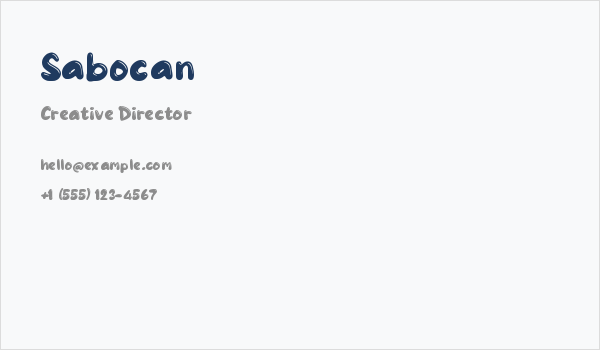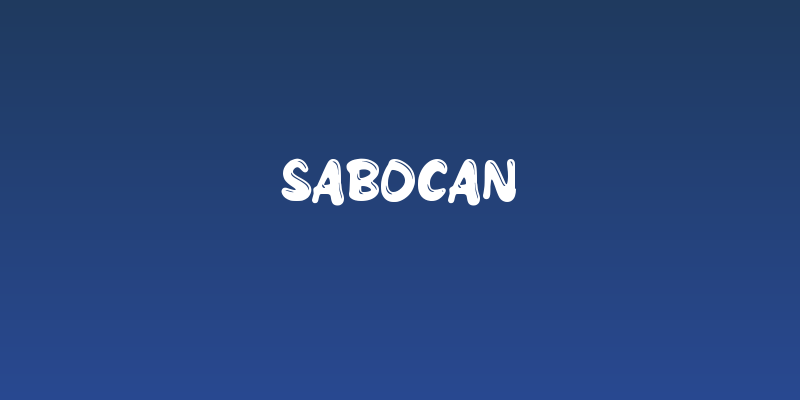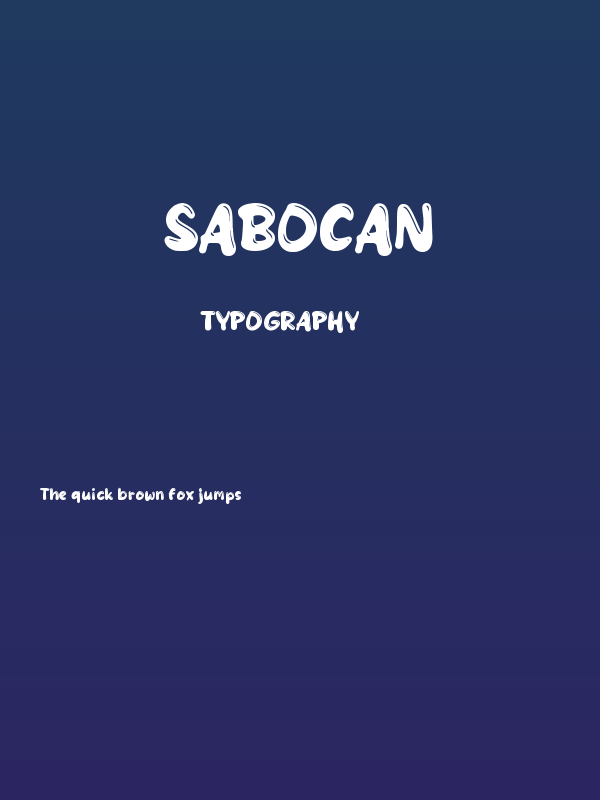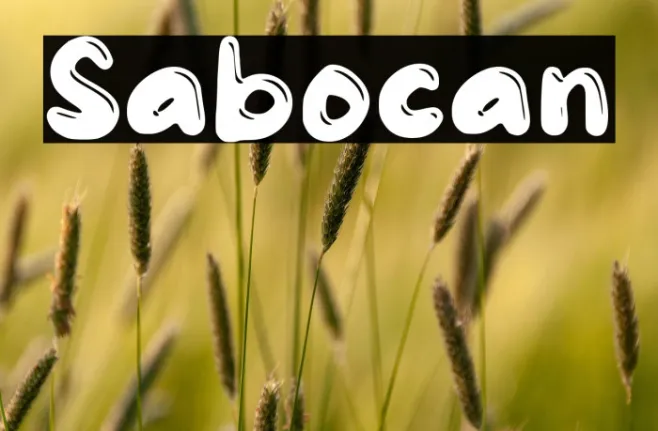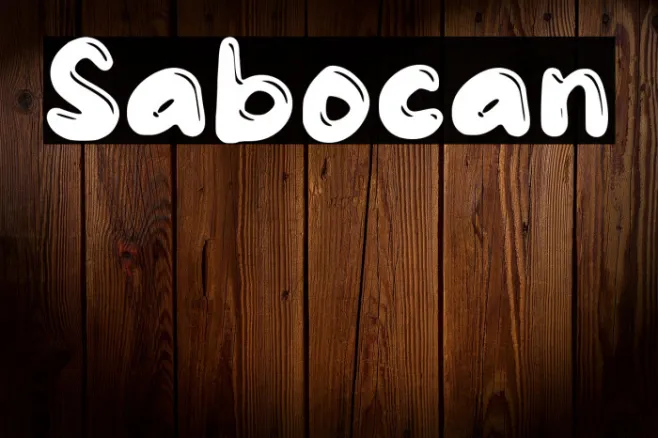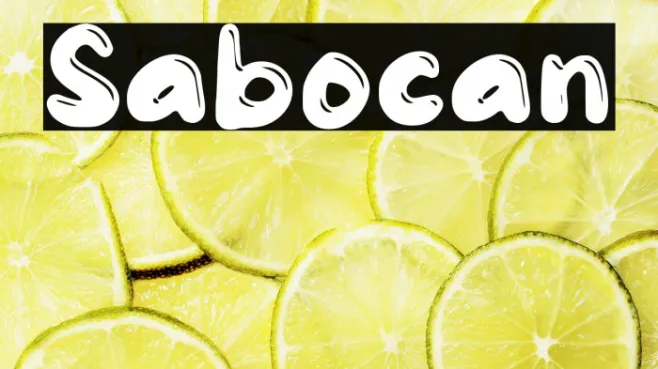
Sabocan Font
Sabocan Description
A playful, rounded, handwritten style font with a casual and friendly appearance, featuring bold strokes and a slightly irregular shape.
| Overall Style | Casual, Playful, Friendly |
| Use Case | Headlines, Children's content, Logos, Posters |